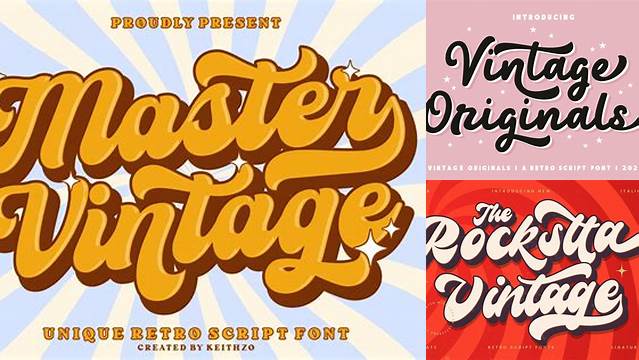
Best Retro Script Fonts For Freemercial Use
Hey there, font enthusiasts! Are you on the hunt for a retro script font that's perfect for your projects, and, even better, freemercial use? Well, you've come to the right place! We're diving deep into the world of vintage-inspired typography, exploring some fantastic options that not only look amazing but also come with the freedom to use them commercially. Let's get this show on the road, guys! We'll explore what makes a font "retro," the importance of freemercial use, and some amazing font recommendations. Plus, we'll touch on how to find and use these fonts effectively. Get ready to give your designs that classic, eye-catching flair!
What Makes a Font "Retro"?
Okay, so what exactly is a retro script font anyway? Think of those fonts that transport you back in time. They're inspired by the lettering styles of yesteryear, from the elegant scripts of the 1950s to the groovy vibes of the 1970s. These fonts often feature flowing strokes, flourishes, and a sense of handcrafted artistry that’s hard to resist. These fonts draw inspiration from various historical periods. The term "retro" itself is a broad concept, but when applied to fonts, it generally encompasses styles from the mid-20th century and earlier. These fonts capture the essence of a specific era, providing a sense of nostalgia and vintage charm. These designs can be used in many scenarios and projects, and they are sure to bring a classic aesthetic to any project. They add a touch of nostalgia and personality that modern, sleek fonts often lack. They evoke a feeling of familiarity and warmth. They stand out because they are distinctive and memorable. The style is often characterized by distinctive letterforms that reflect the design trends of that period. If you think of the flowing curves, the elegant serifs, and the playful letterforms, you're on the right track. The script font is often used in logos, headlines, and other design elements where a touch of personality and sophistication is desired. Many people love them because of their versatility, and their ability to bring back a sense of history. These fonts can be traced back to hand-lettering styles, calligraphic traditions, and the popular design trends of their time. They go great with branding and bring an extra layer of artistry to many types of projects. The revival of retro design in the digital age has increased the popularity of these scripts. They are a timeless choice for any creative project.
Retro script fonts are more than just a typeface; they're a statement. They communicate a sense of history, artistry, and craftsmanship. They offer a unique way to make your design stand out. From the elegant curves of a vintage script to the bold strokes of a classic display font, retro fonts add a touch of sophistication and nostalgia that is hard to replicate with more modern styles. Whether it's a logo, a website header, or a poster, a well-chosen retro font can elevate your design and create a memorable visual experience. These fonts can have a profound impact on how your brand or project is perceived. When used wisely, these fonts can strengthen your message. They can create a distinctive visual identity. The specific characteristics of a retro script font can vary widely depending on the era and style it is inspired by. Some may feature long, flowing strokes and ornate details, while others are more streamlined and geometric. The fonts are versatile. You will find something for every design.
Top Retro Script Fonts for Freemercial Use
- Playlist Script: This font is full of character, with a flowing, slightly distressed look that's perfect for a vintage vibe. It's great for logos, posters, and anything that needs a touch of personality. It is a beautiful and versatile font that captures the essence of vintage style with its fluid strokes and elegant design. With its unique blend of nostalgia and charm, Playlist Script can elevate any creative project, whether you're working on a logo, a poster, or a website banner. Its freemercial use makes it a convenient choice, giving you the freedom to use it without any royalty payments. The font's vintage aesthetic makes it perfect for a variety of design projects. It has a distressed look, adding authenticity and character to your designs. The font's versatility allows it to be used in various scenarios, ensuring it fits your specific aesthetic. Playlist Script is a great selection for bringing a touch of the past into your work. This font offers both visual appeal and practical benefits. It allows creatives to express themselves without financial constraints.
- Butterflies: This script is sweet and delicate, with a feminine touch. It’s ideal for projects that need a touch of grace and elegance. It's commonly used for invitations, quotes, or anything that could use a touch of refinement. The graceful letterforms and delicate curves of Butterflies capture a sense of elegance and sophistication, allowing you to add a refined touch to your designs. This font is a good fit for projects that need a touch of grace, providing a timeless aesthetic that resonates with many audiences. Its delicate letterforms and flowing strokes make it an ideal choice for invitations, quotes, and other designs. The font's freemercial use means that you can use it without additional costs. It is user-friendly and allows you to focus on the creative process. Its versatility makes it suitable for a wide range of applications, from personal projects to business ventures. Butterflies provides a combination of aesthetic appeal and practical benefits. This font is a great choice for any project that could use a touch of refinement. It combines aesthetic appeal with practicality and accessibility.
- Great Vibes: This is a beautiful, flowing script font that exudes elegance. It’s perfect for headings, logos, and any design that needs a touch of class. Great Vibes brings a sense of sophistication and refinement to any design project. The fonts's flowing letterforms and elegant design create a polished and professional look. It makes your designs stand out. Great Vibes has been carefully crafted to evoke emotions of timeless elegance and grace, making it the perfect choice for projects that require a touch of classic charm. Its free commercial use makes it a user-friendly choice. This allows you to use it in a variety of projects without financial restrictions. This font helps your projects be elevated and enhanced. It offers a balance of visual appeal and practical advantages.
These are just a few examples, of course! There are tons of other amazing retro script fonts out there. Look at sites like Google Fonts, DaFont, and Font Squirrel to find more options.
How to Find and Use Retro Script Fonts Effectively
So, you've found some awesome retro script fonts – what's next? Here's how to use them like a pro!
- Know Your Project: Think about the overall vibe you're going for. Is it playful and fun? Or elegant and sophisticated? Choose a font that complements your project's style.
- Pairing Fonts: Don't use too many different fonts in one design. It can get messy! Choose a retro script font and pair it with a simple, clean sans-serif or a classic serif font for a balanced look.
- Readability: Make sure your font is readable, especially at smaller sizes. Avoid overly ornate scripts for body text.